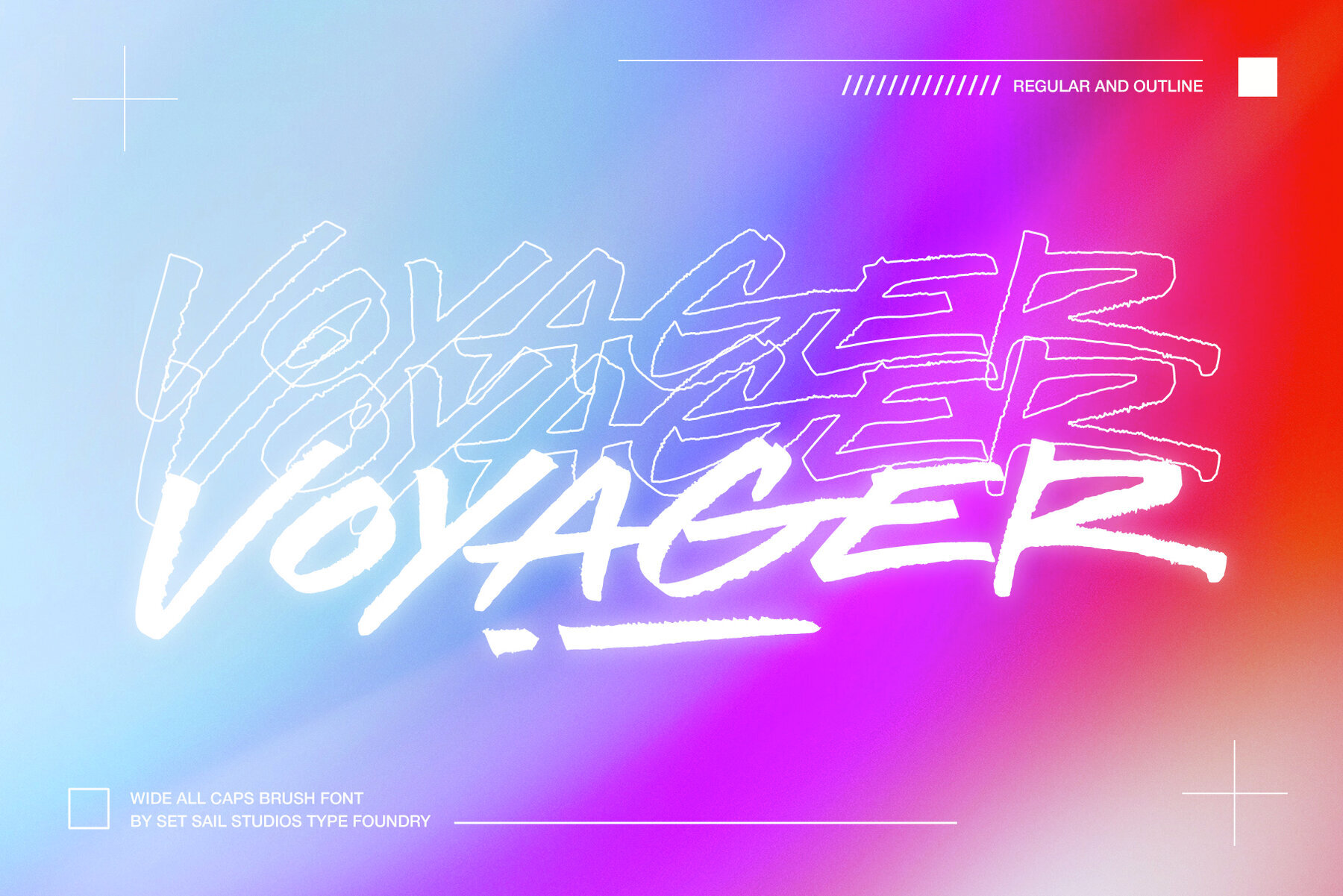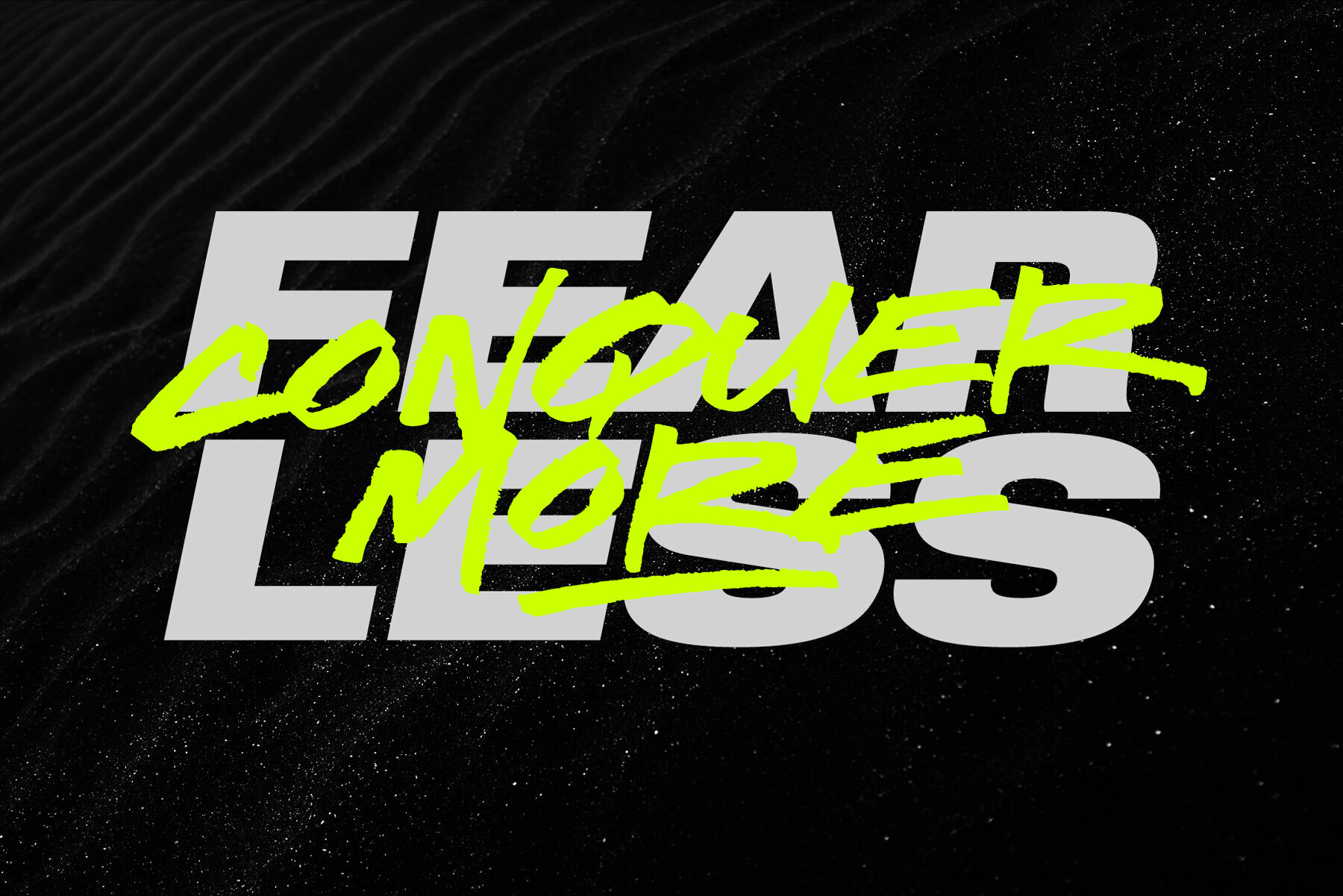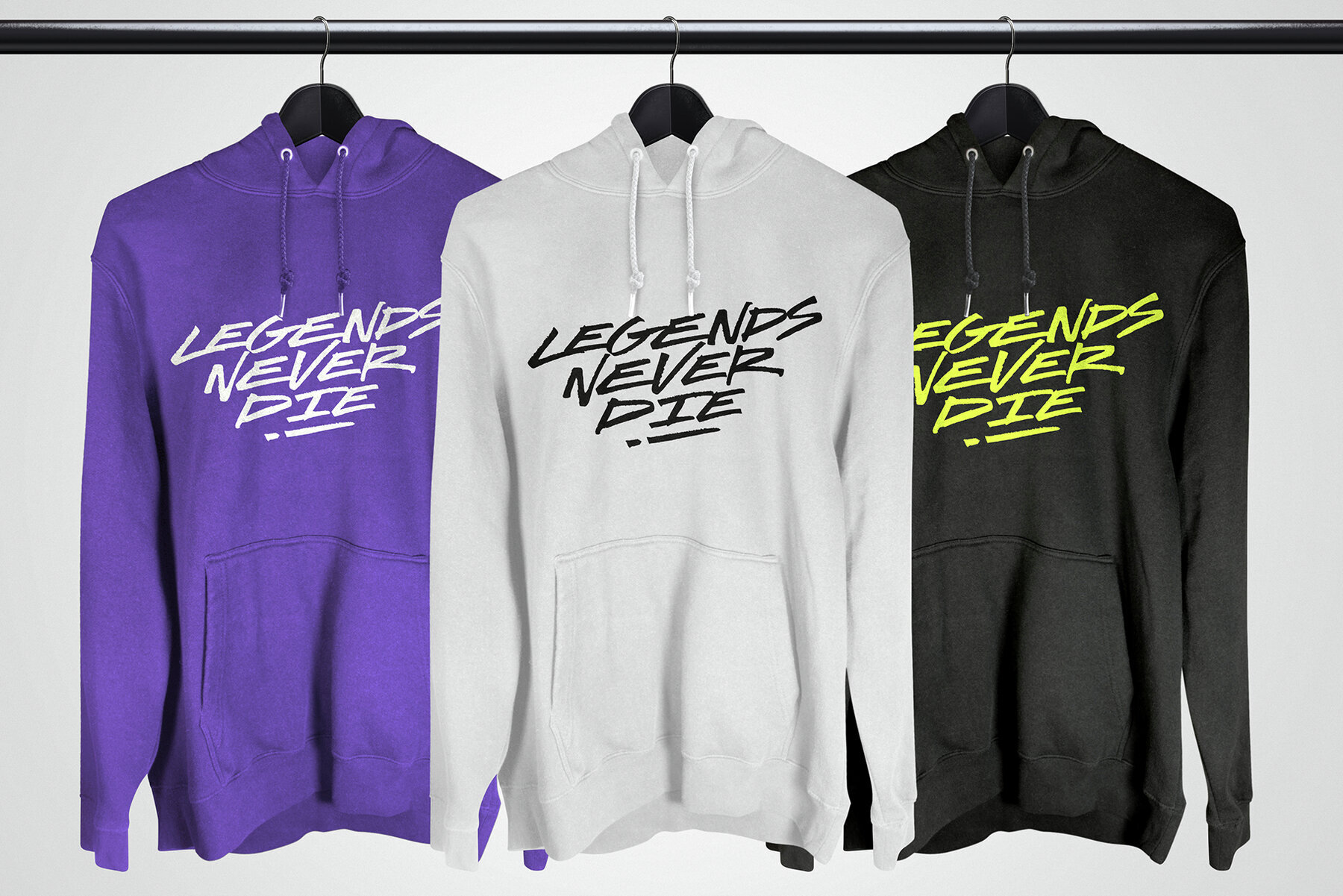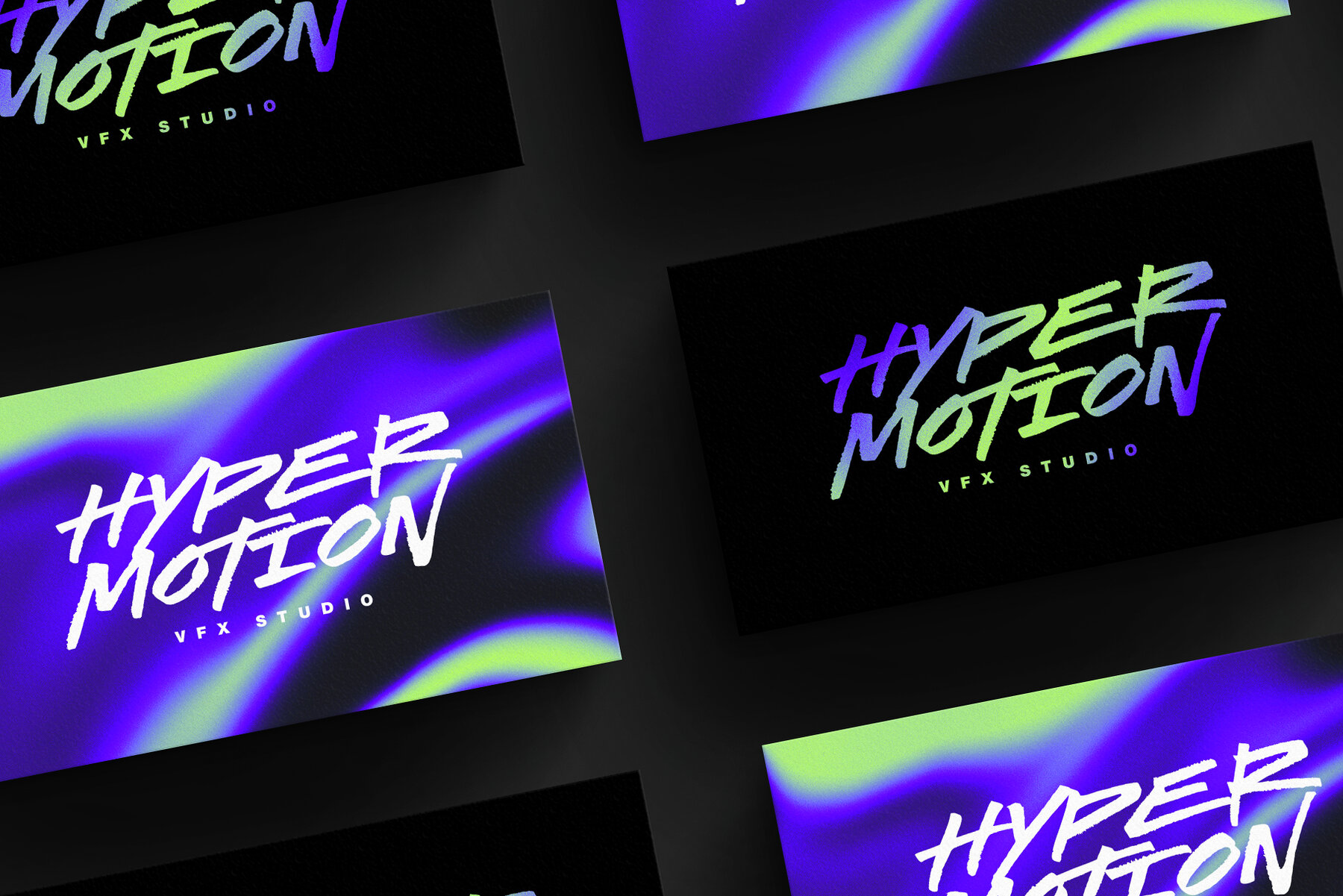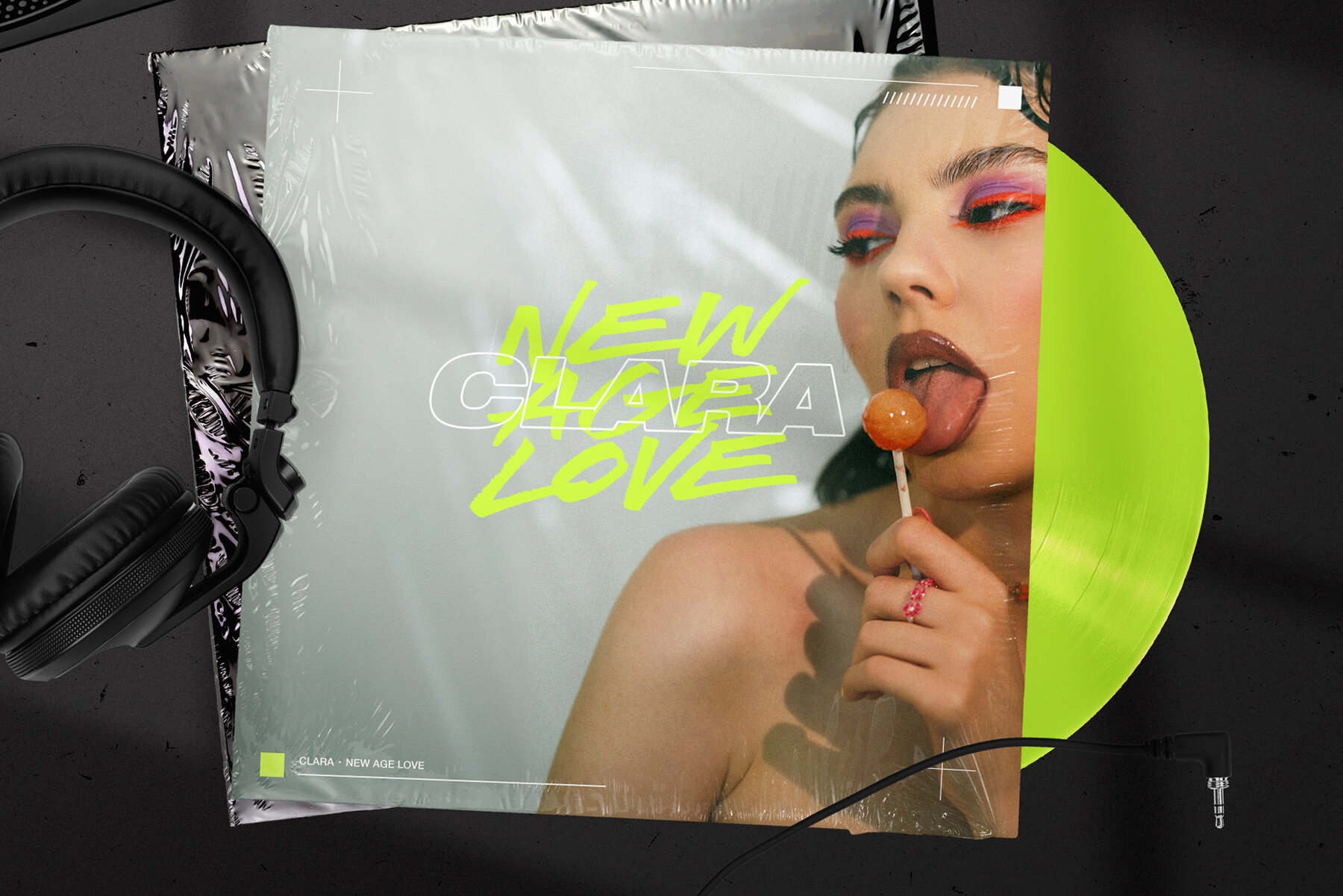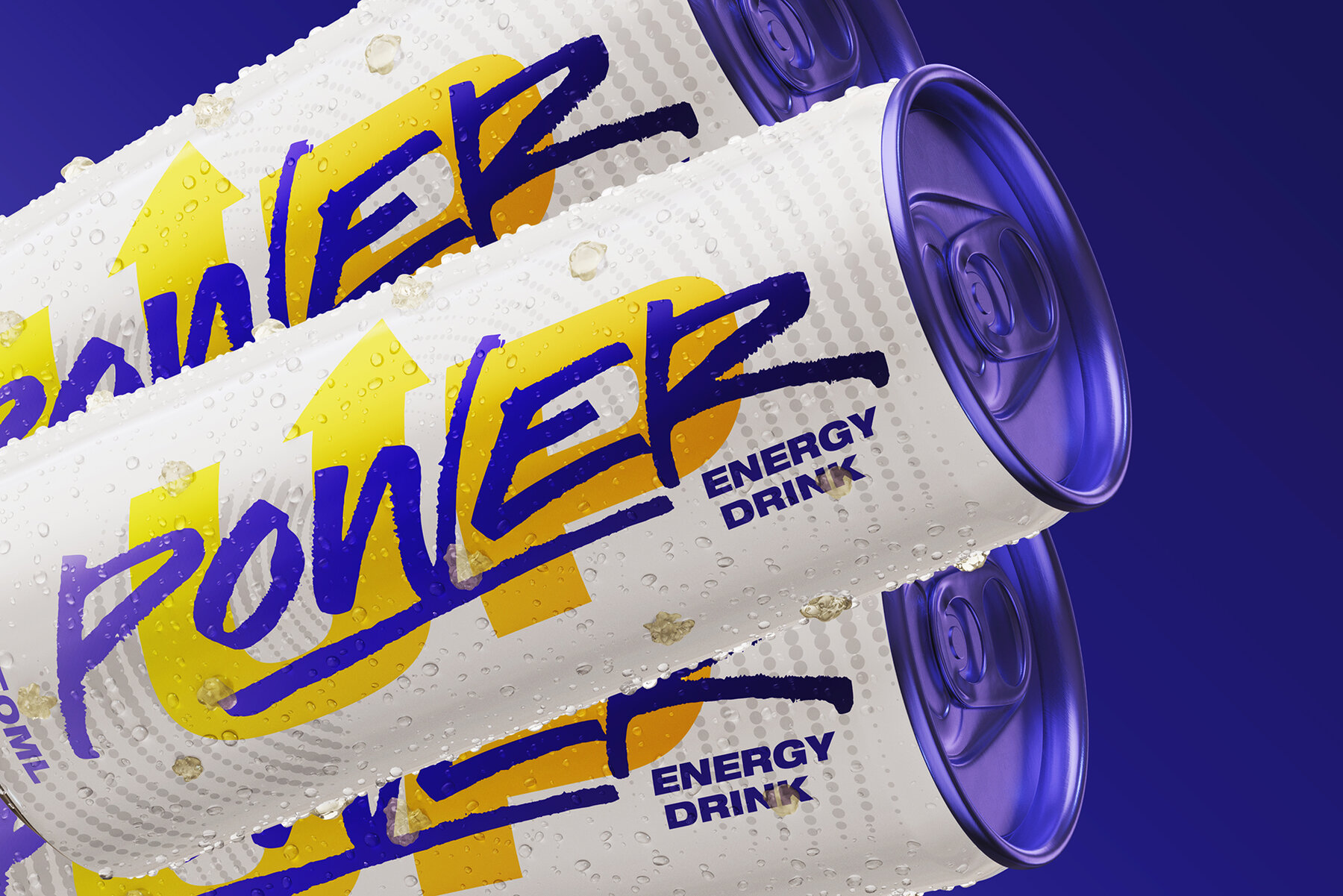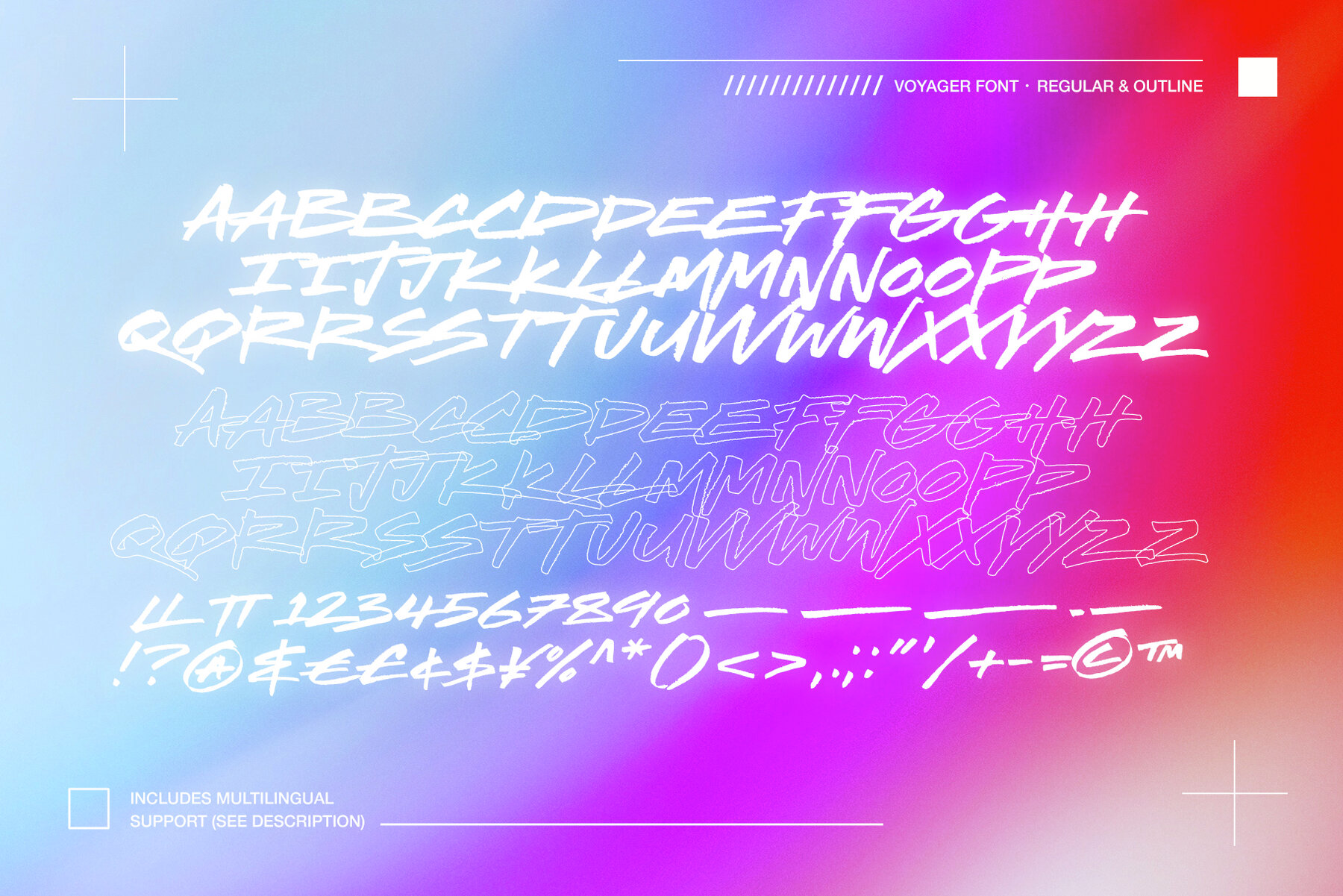
Voyager Brush Font
Make your mark with VOYAGER—a wild & wide all-caps brush font with energetic strokes and a gritty texture. It’s guaranteed to leave a lasting impression on any design project in need an injection of motion and vigour. VOYAGER Includes 2 sets of capital letters (simply switch between upper and lowercase sets), available in 2 versions – Regular and Outlined. The Voyager Family Includes 2 Fonts; 1. VOYAGER Regular • A high energy, hand crafted brush font with high energy and heavy textures. Switch between upper and lowercase to access the 2 sets of capital letters. Contains a full set of numerals and punctuation. 2. VOYAGER Outline • An outlined version of VOYAGER for adding depth to your lettering. Language Support • English, French, Italian, Spanish, Portuguese, German, Swedish, Norwegian, Danish, Dutch, Finnish, Indonesian, Malay, Hungarian, Polish, Croatian, Turkish, Romanian, Czech, Latvian, Lithuanian, Slovak, Slovenian. This font boasts a raw, expressive brush script style ideal for projects that require a touch of edginess and vitality. Its bold, gritty strokes and dynamic form convey an urban, contemporary vibe, making it suitable for eye-catching headlines, impactful advertising, or artistic branding efforts. The imperfect and freeform qualities lend the typeface an authentic handcrafted character.